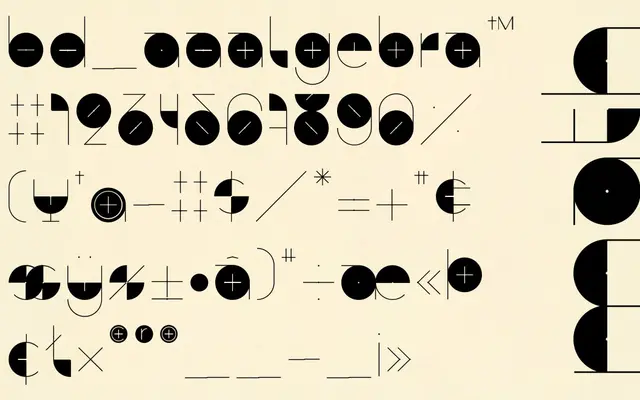
BD Algebra
Type Different · 2009
A single-weight geometric grotesque released in 2009 as a free personal-use font, with commercial licensing available.
Available in two subfamilies, BD Algebra Plus and BD Algebra Minus, the typeface covers Basic Latin, Latin-1 Supplement and a modest selection of Latin Extended-A characters, supporting Western European languages including Danish, French, German and Spanish. It is a straightforward geometric grotesque with no italic or condensed cuts. Free for personal projects; a commercial licence must be purchased separately.
The typeface is explicitly described as a geometric grotesk, combining the circular, constructed forms of geometric sans-serifs with the workhorse character of a grotesque.